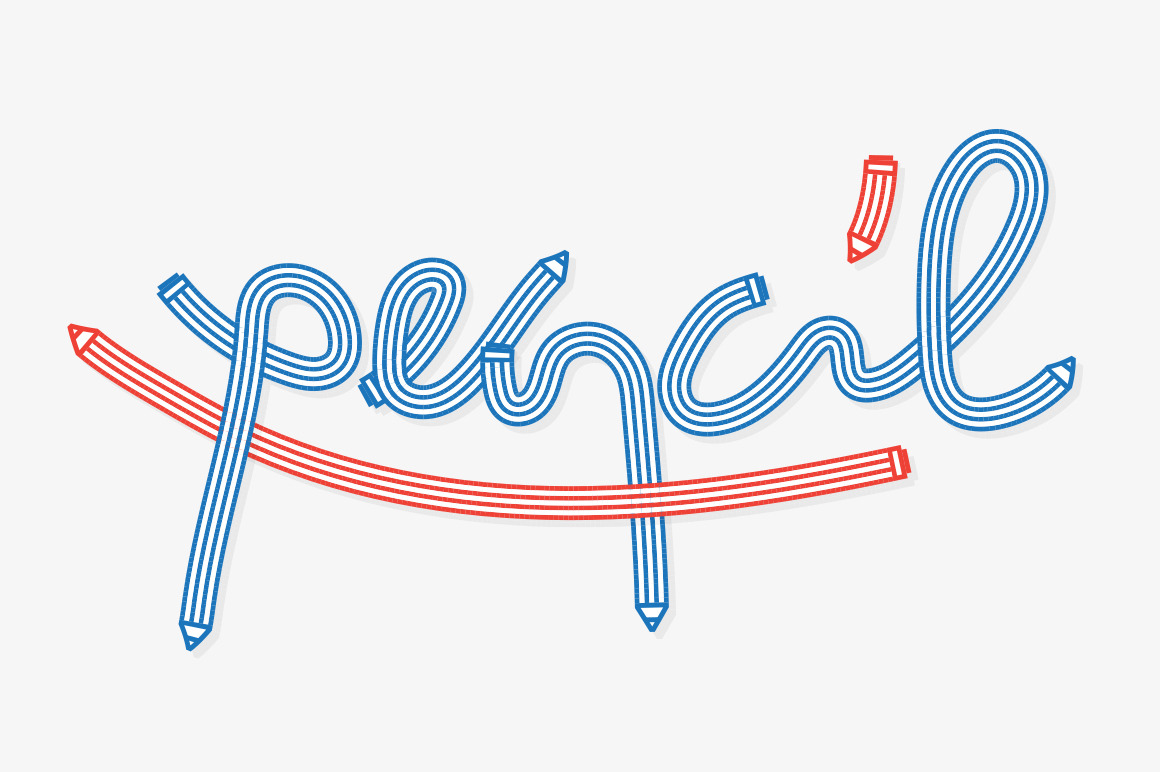
Pencil Font
Following on from a tutorial I developed a complete alphabet using a brush created in Adobe Illustrator.
You can either use the alphabet I have drawn or create unique letters yourself (which is good fun!)
Easily change the colour of the letters.
This font is great for all kinds of projects.